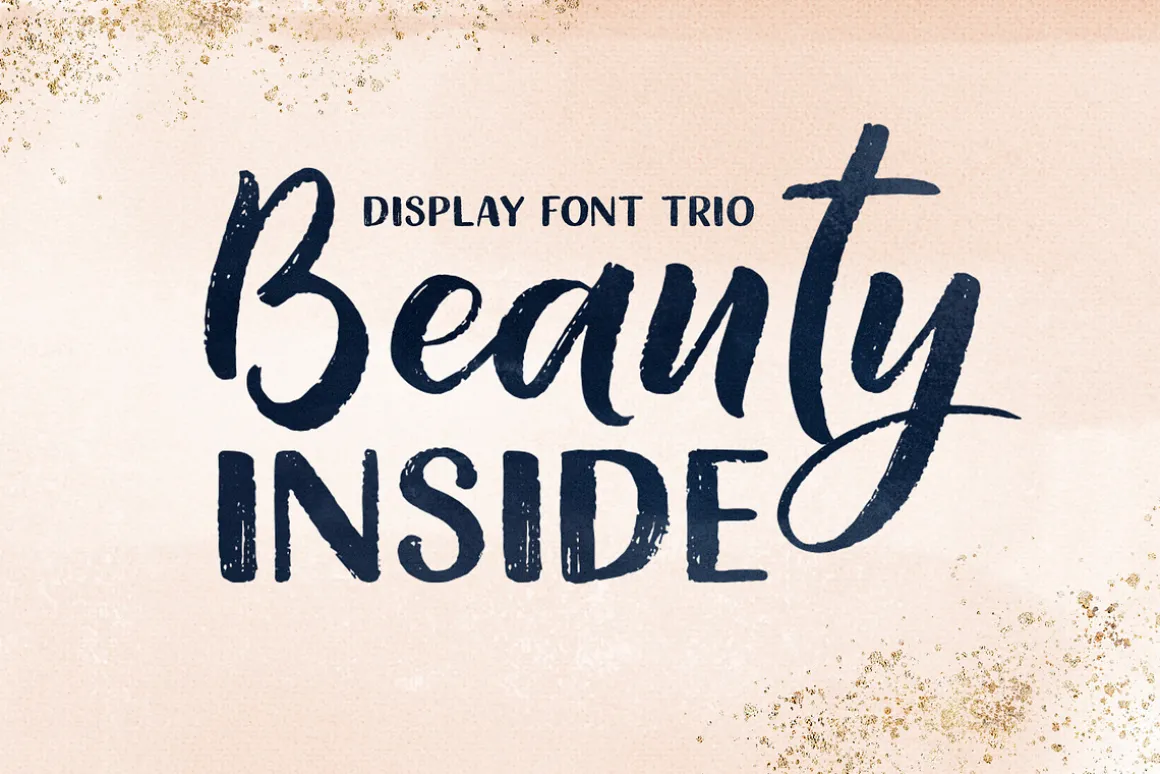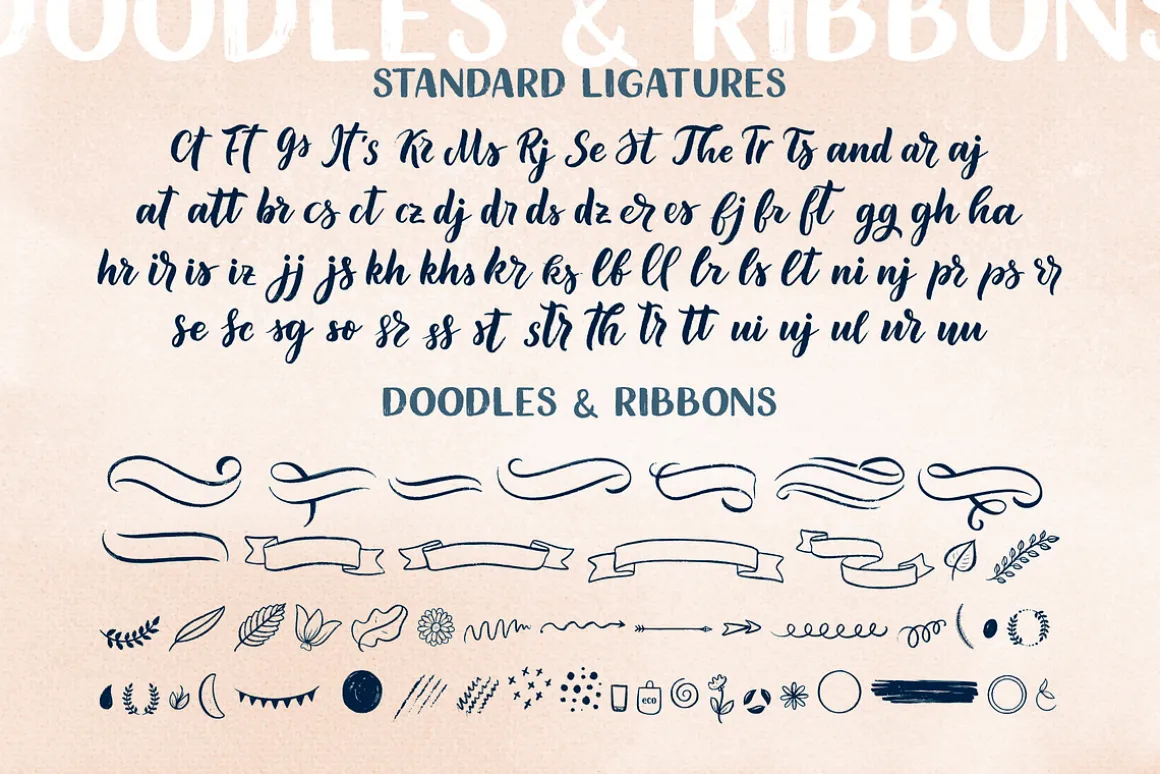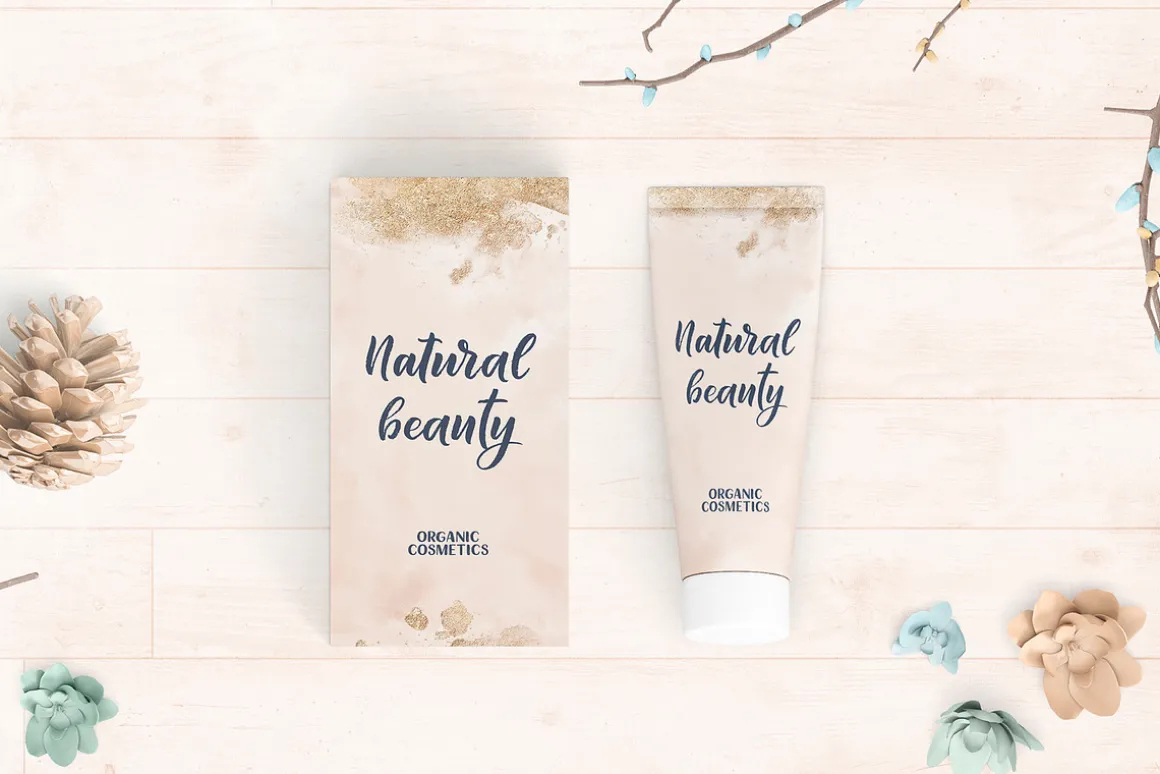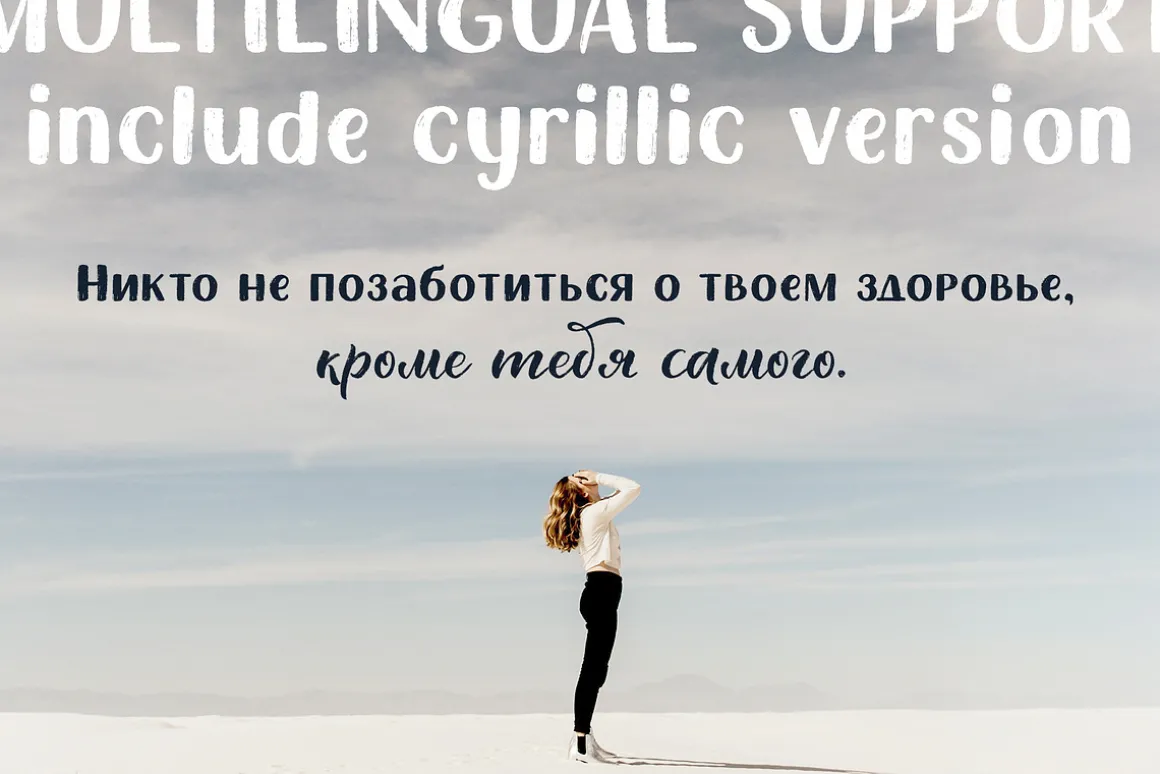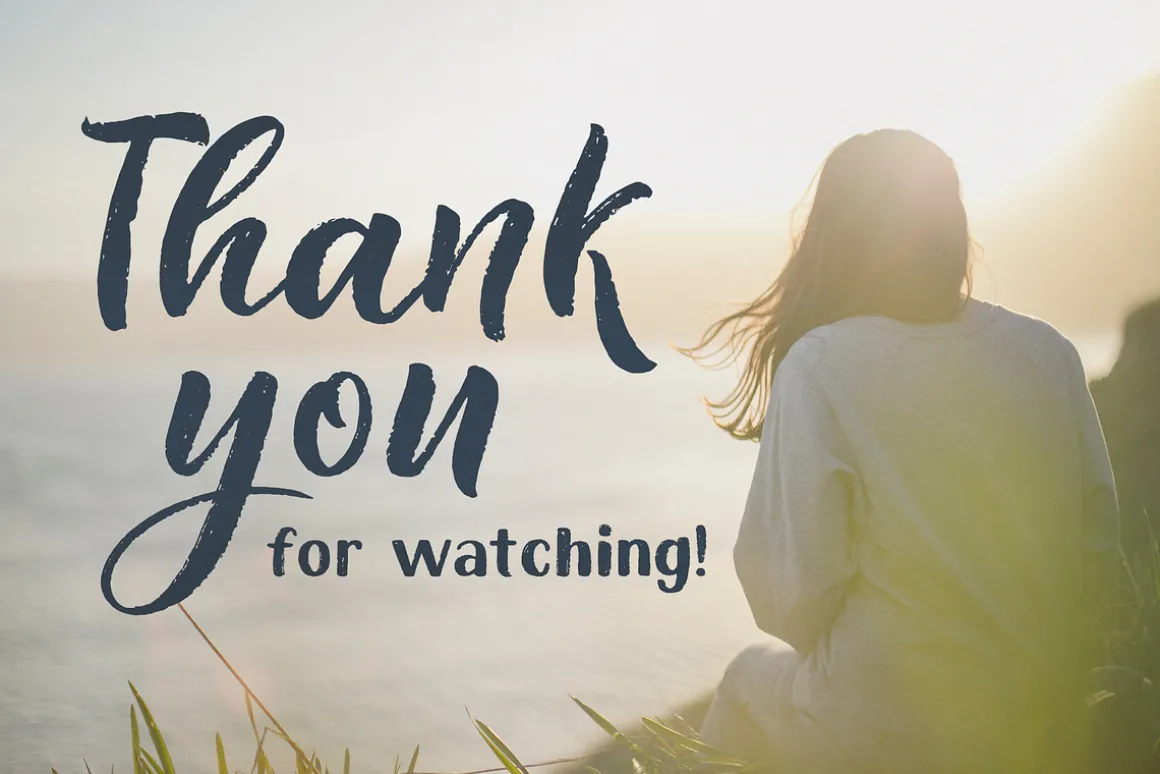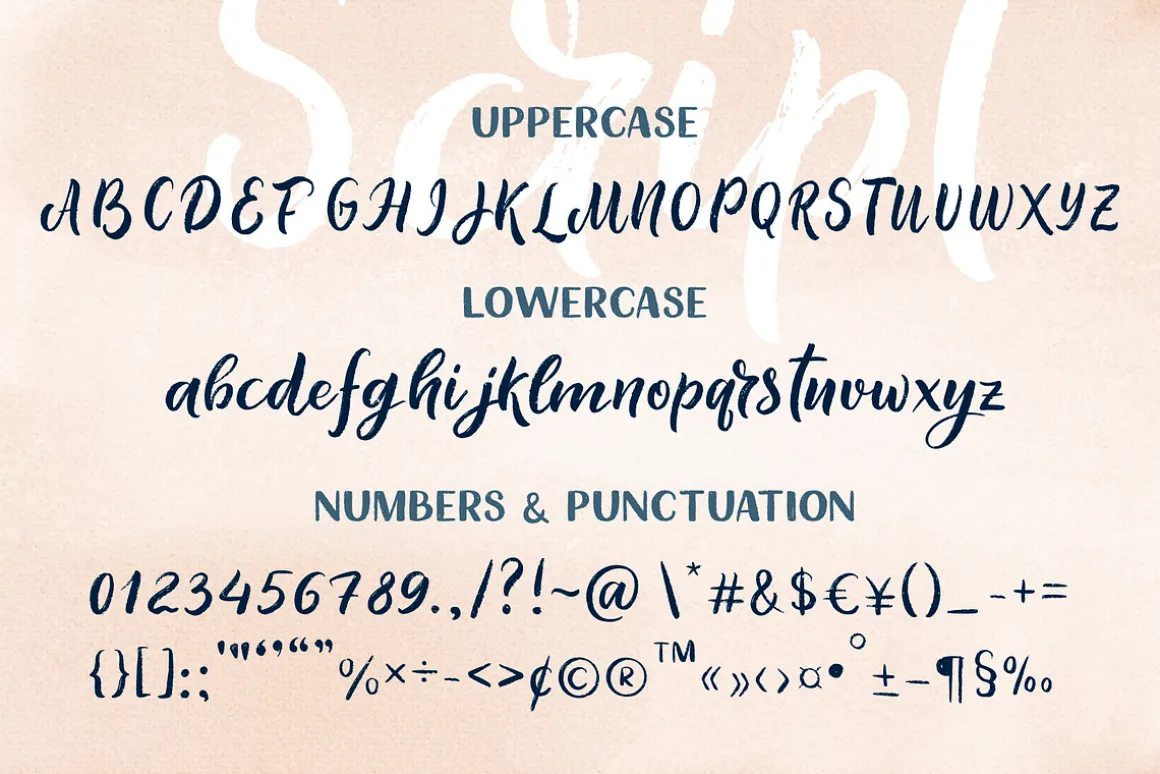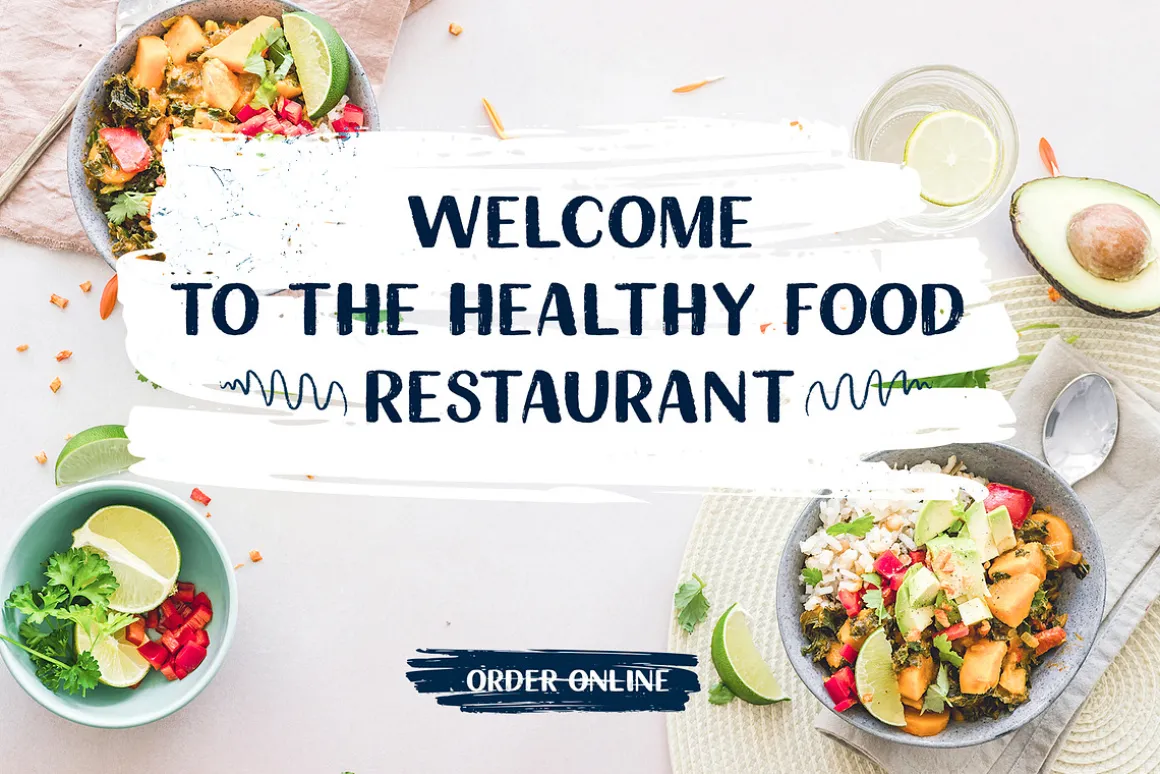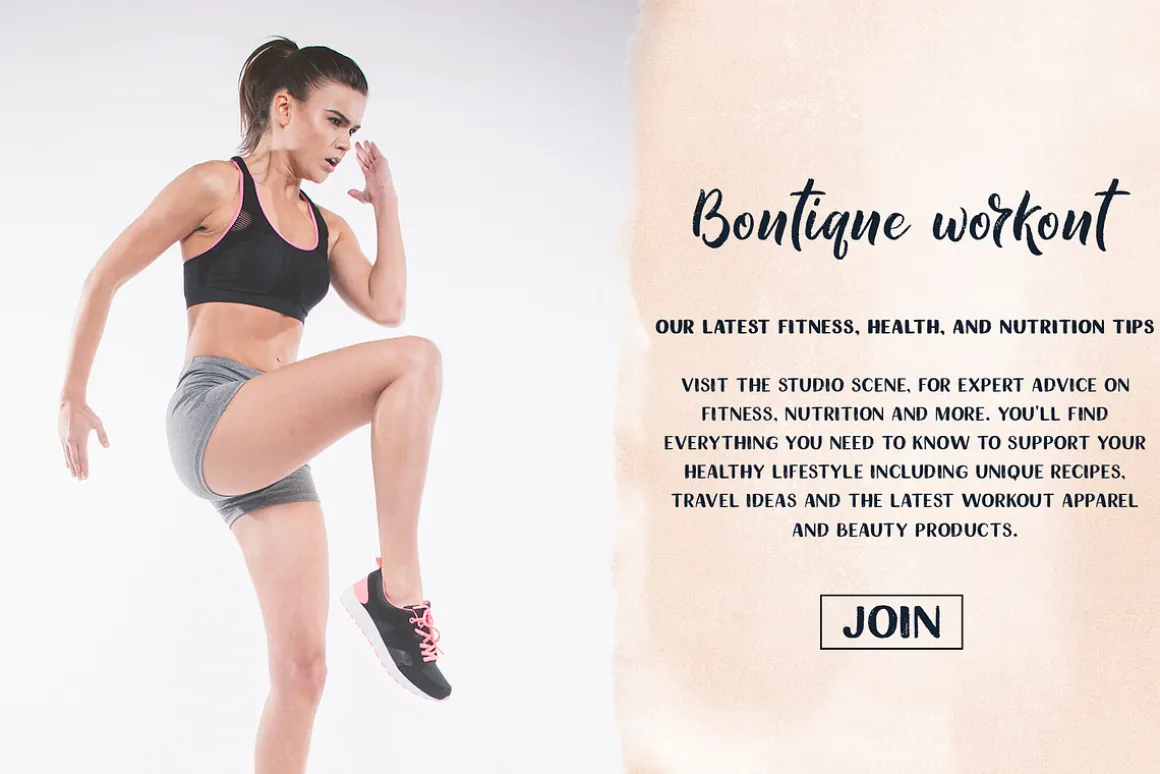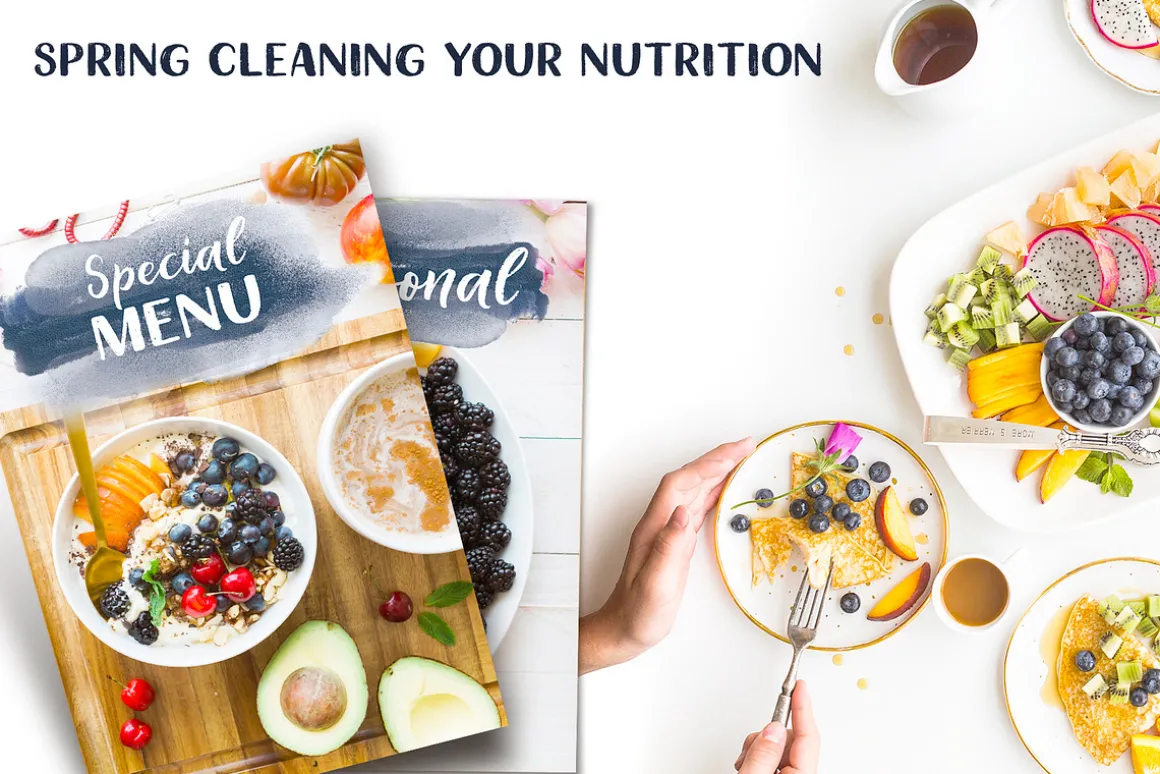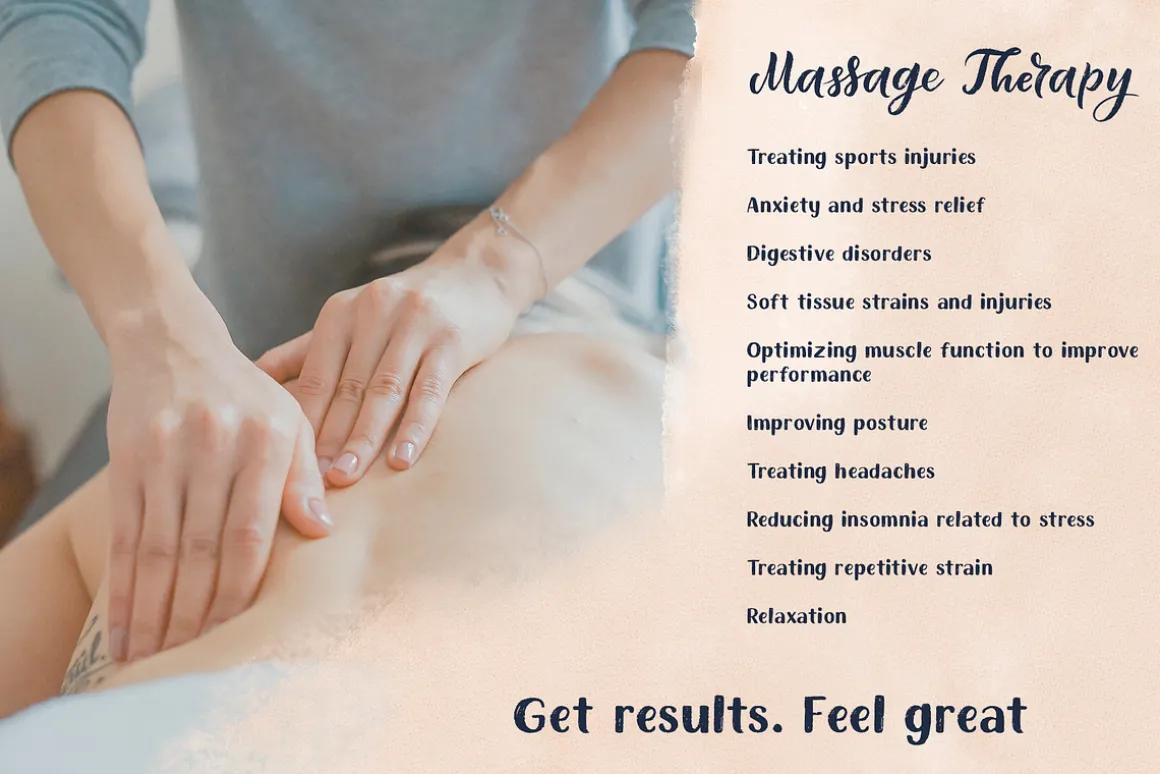
Let me introduce my new product – Beauty Inside Font Trio! A slightly rough hand drawn style is so natural, and I think it will be something new for your design!)
Includes Script, Sans Serif, Doodles elements & Ribbons, all fonts are textured and hand drawn.
Fonts are perfect for logotype creation, lettering compositions, wedding invitations, fashion projects, book design cover, magazines typography, cards, packagings, posters, branding, blogging and more.
You can also create many of other typography designs. Script have standart ligatures and you can see good results right away.
Beauty Inside have supporting for many languages as: Russian, Czech, Danish and Norwegian, Deutsch, English, Espanol, French, Italiano, Magyar, Nederlands, Polish, Portuguese, Finnish, Swedish, Turkish and other based on extended latin.